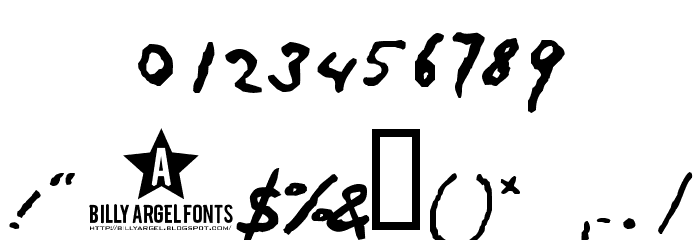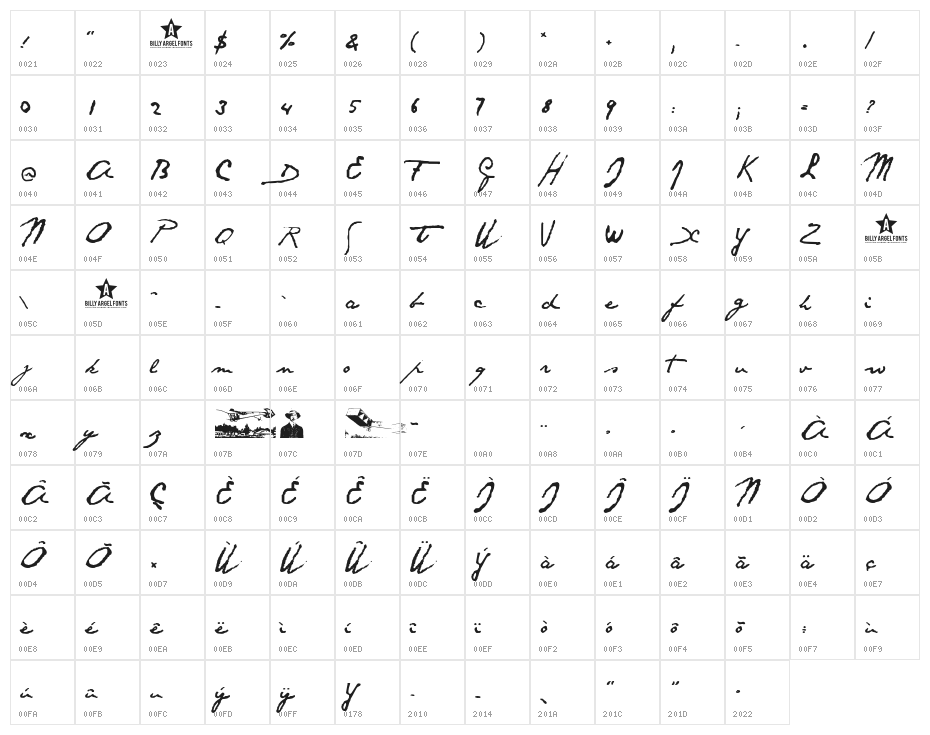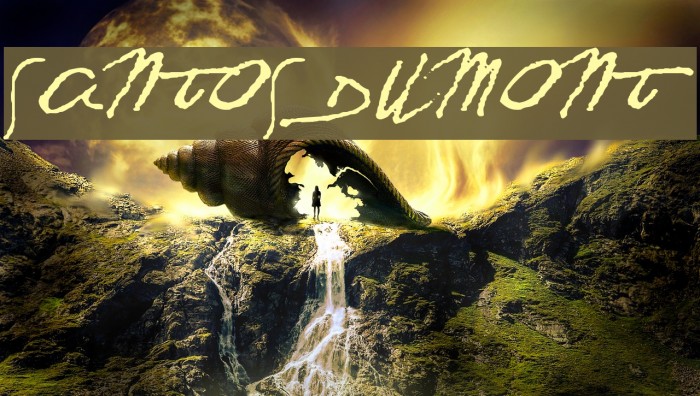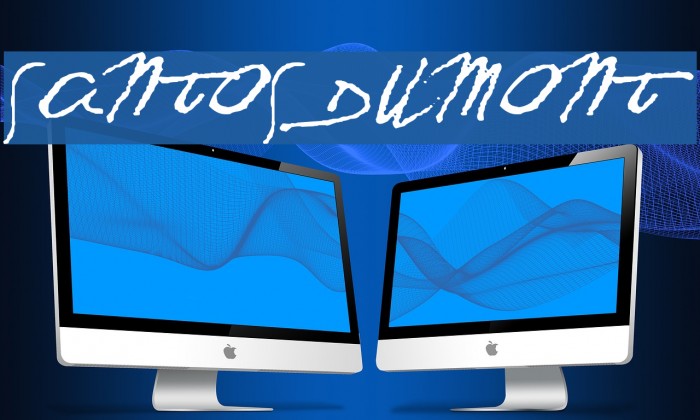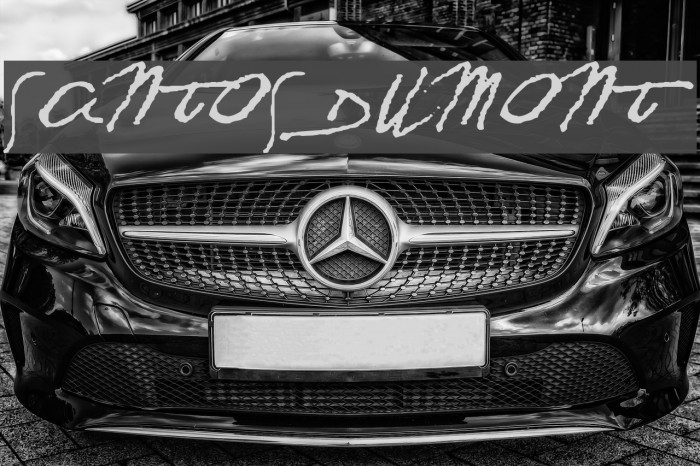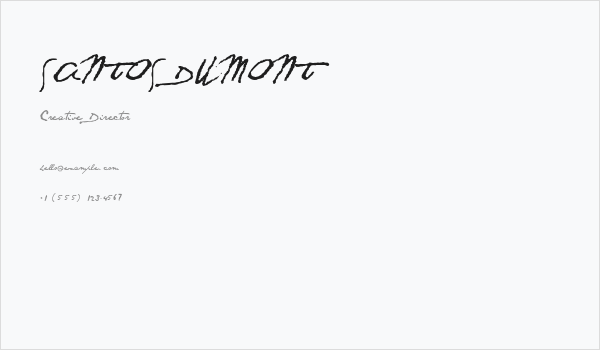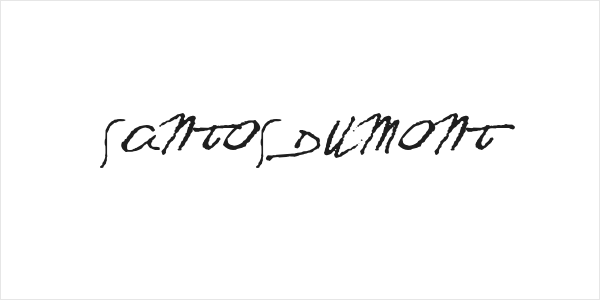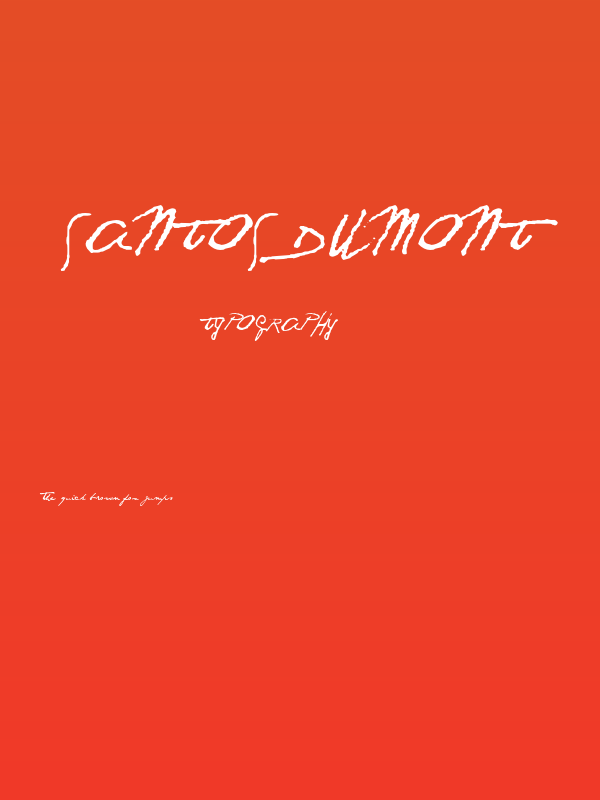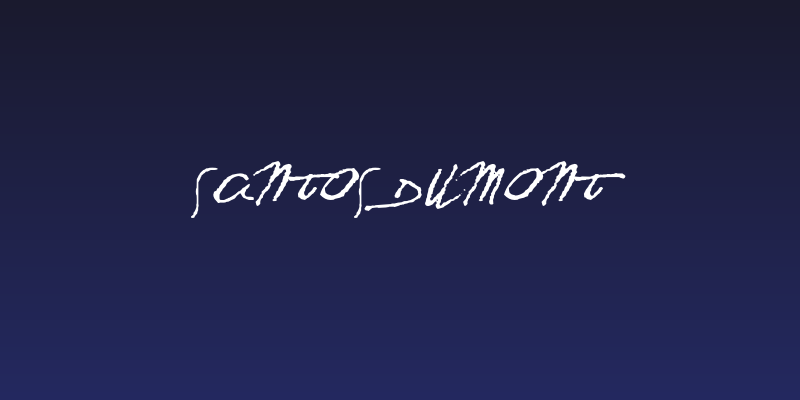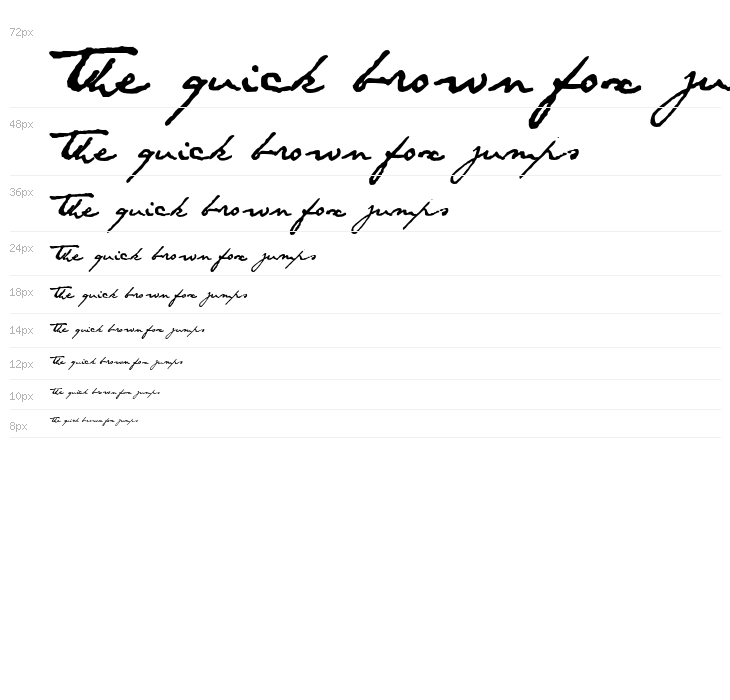
SANTOS DUMONT Font
SANTOS DUMONT Description
This font features a dynamic and expressive handwritten style, characterized by its fluid and organic strokes. The letters have a natural, flowing appearance, reminiscent of quick, artistic handwriting. The uppercase and lowercase letters maintain a consistent style, with some letters exhibiting unique flourishes and loops that add to the font's charm. The numbers and special characters are crafted with the same attention to detail, ensuring a cohesive look across all glyphs. This font's informal and personal touch makes it ideal for projects that require a human element.
| Use Case | Logos, Invitations, Artistic designs |
| Proposed Projects | Ideal for personal branding, creative projects, invitations, and artistic designs. |